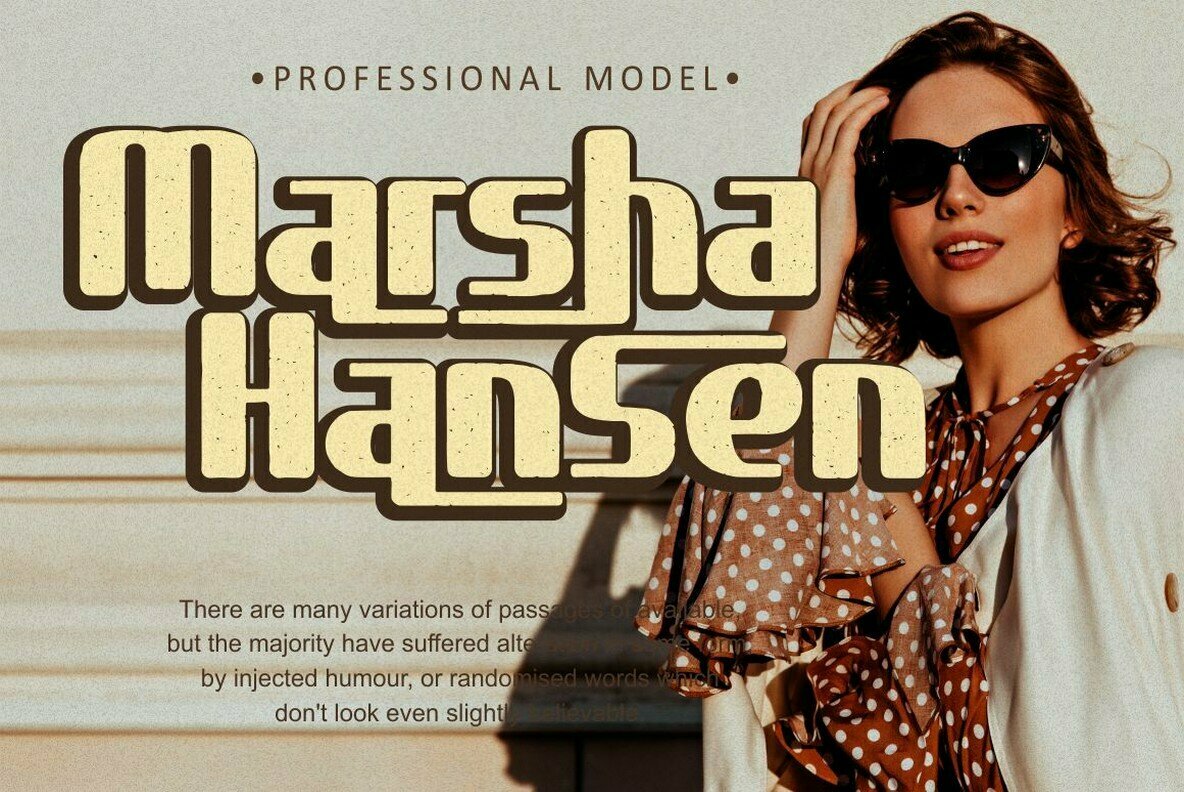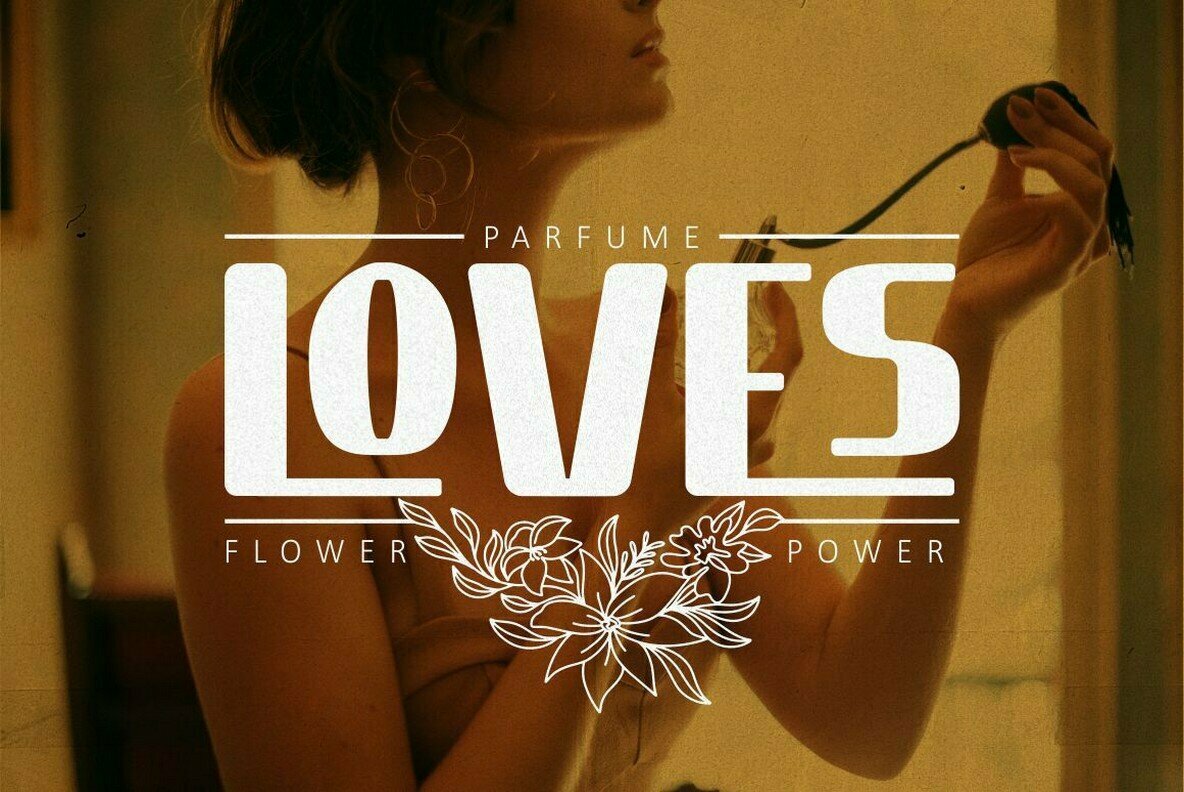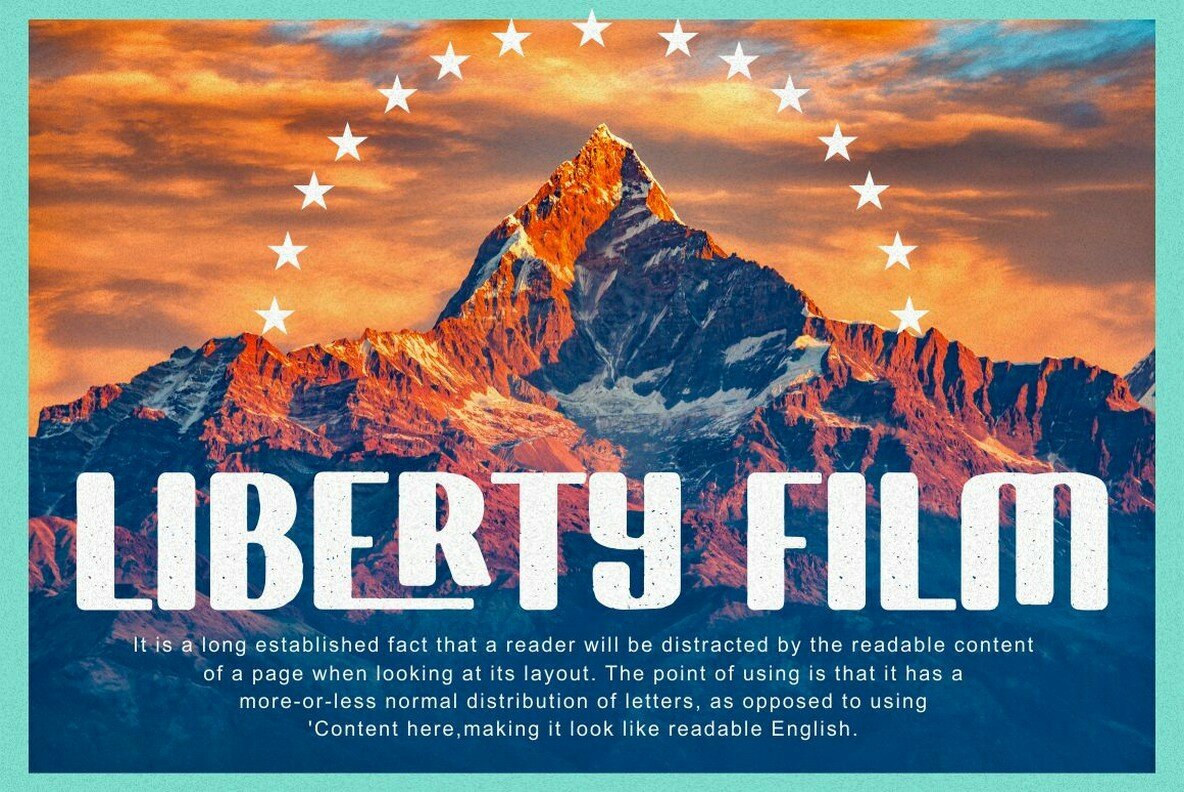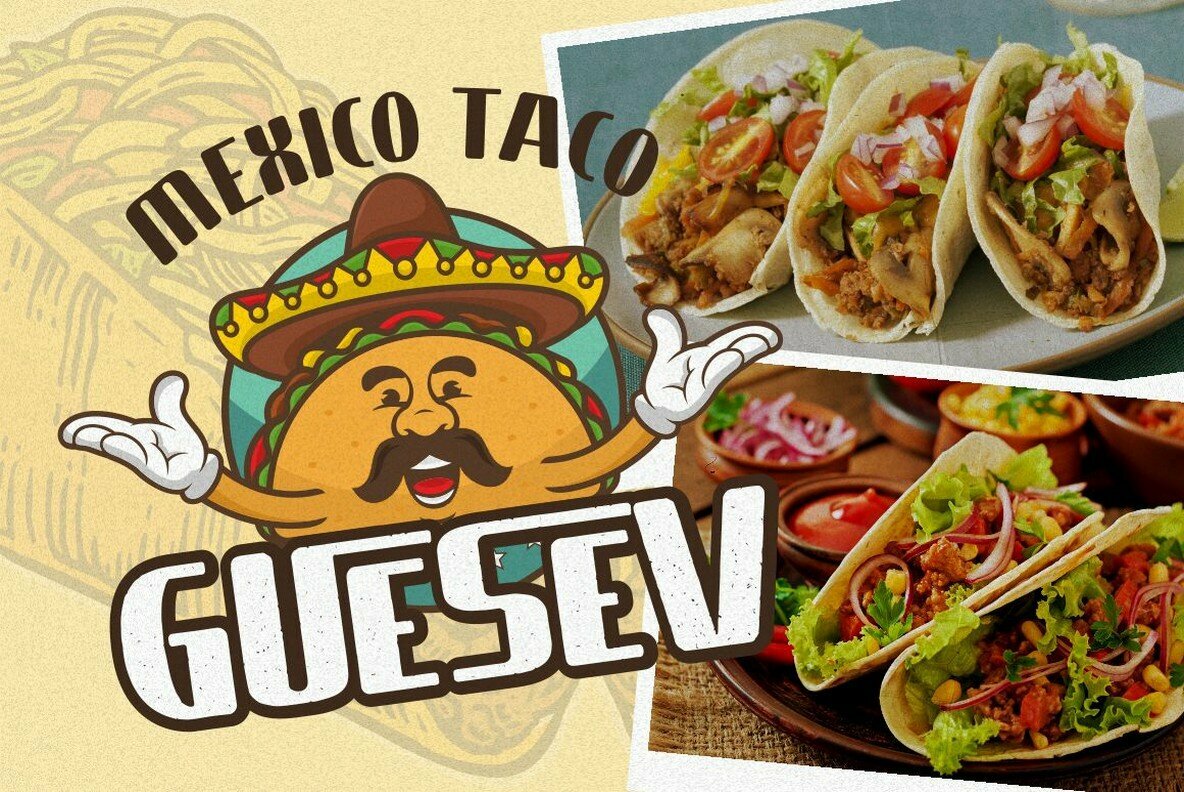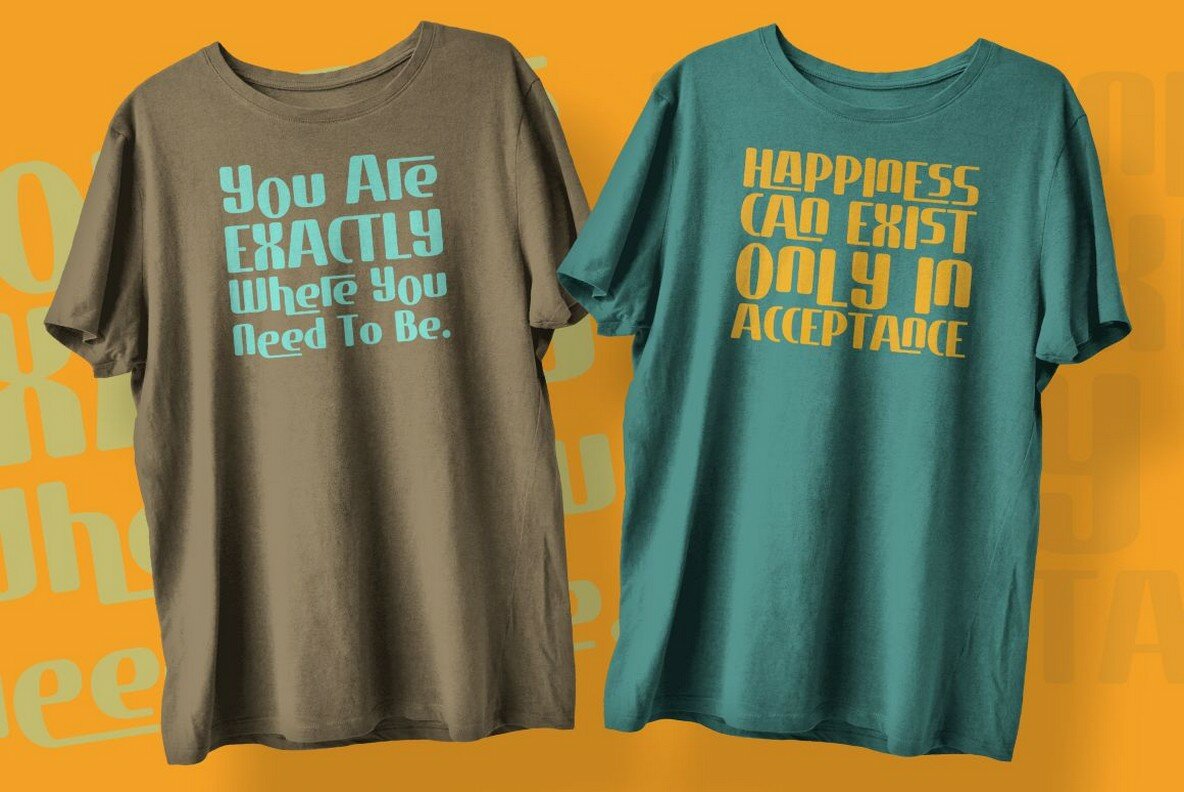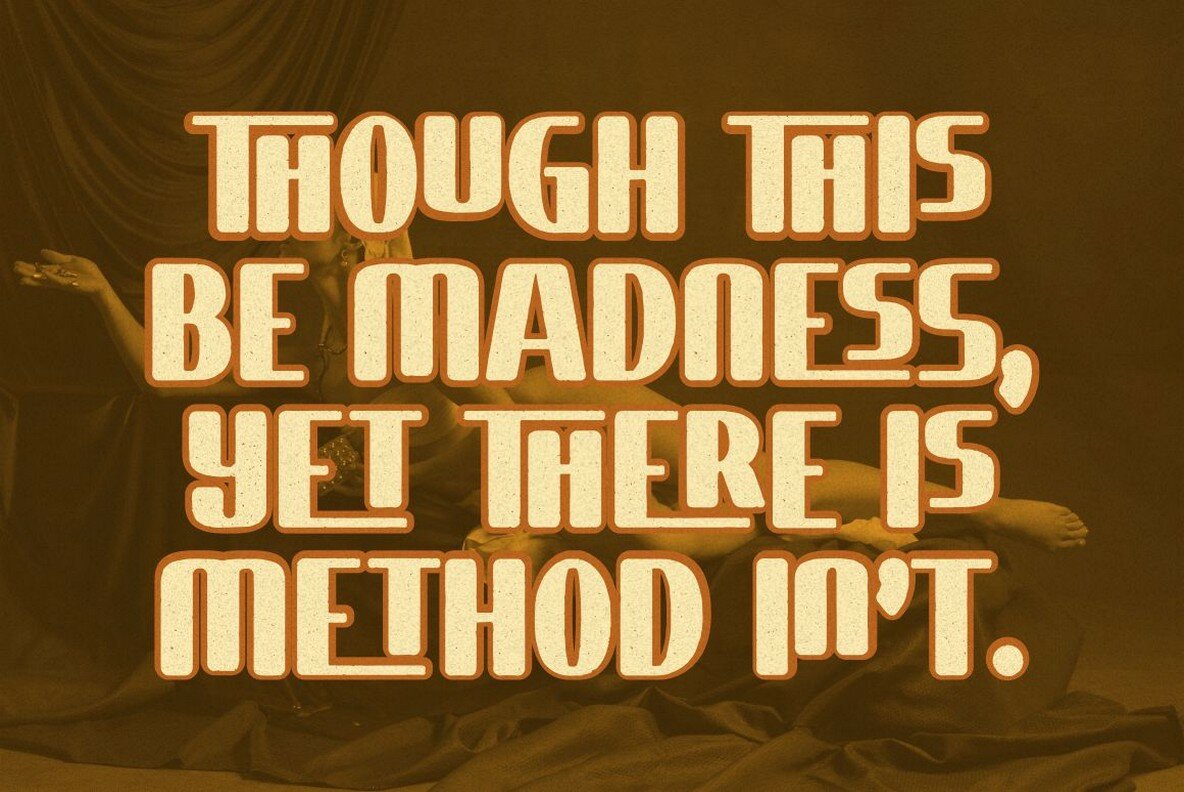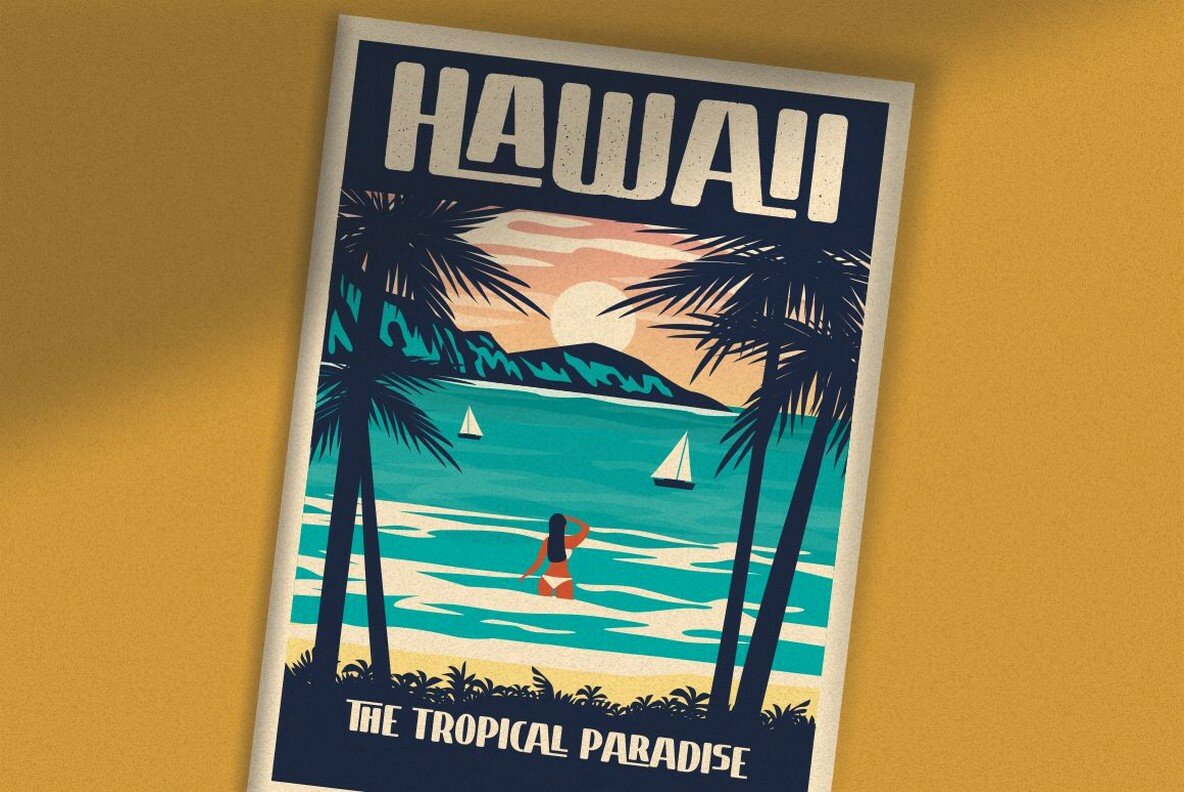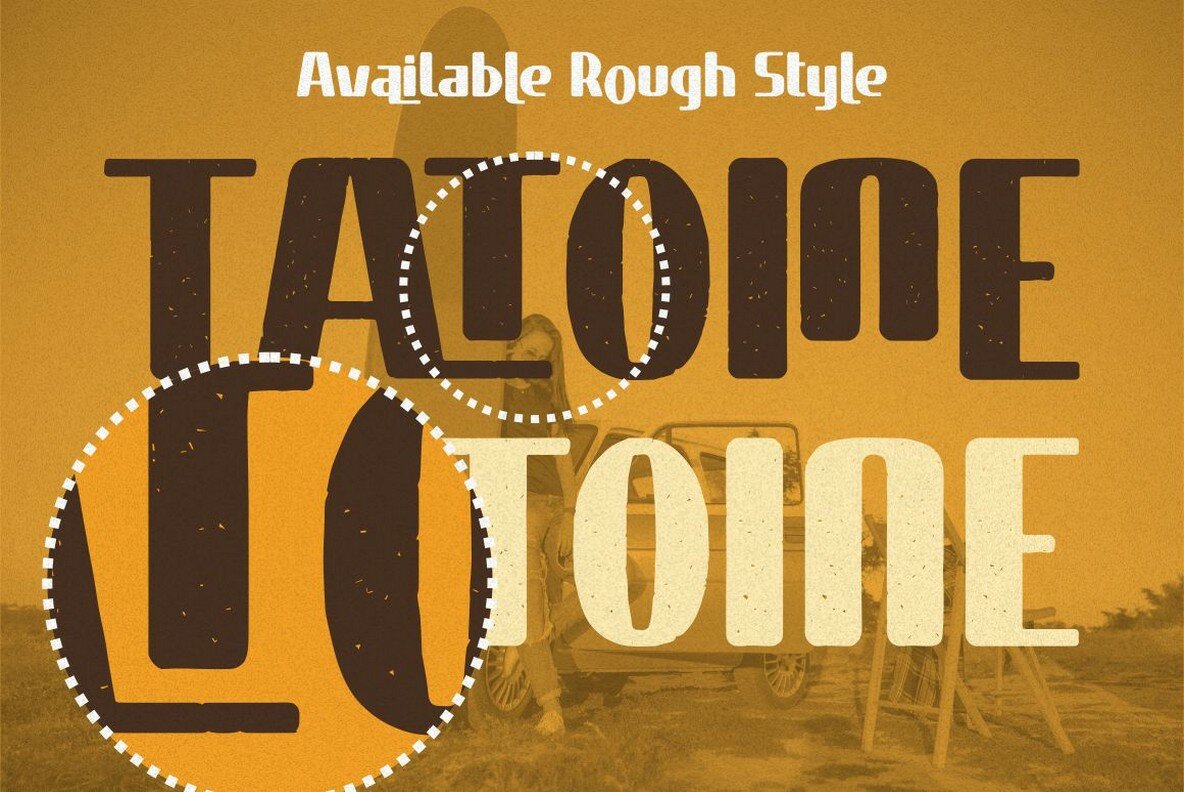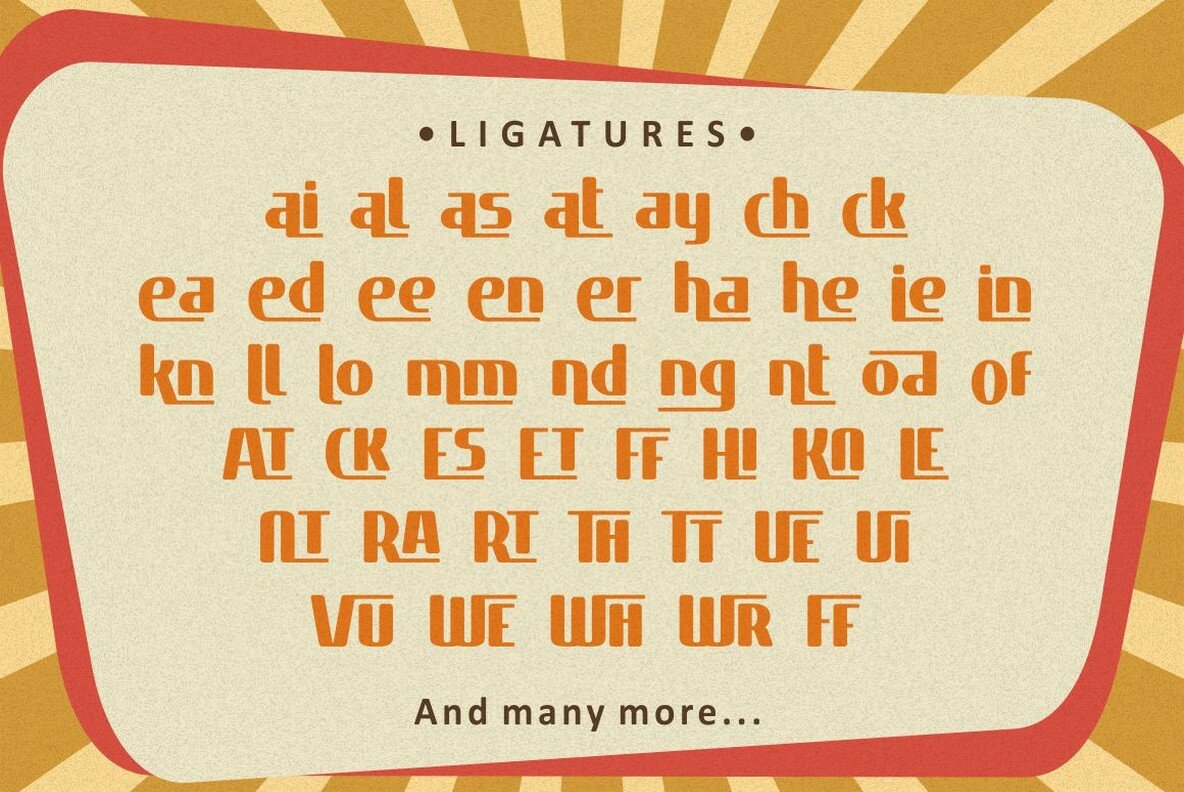
Aloalla Font
Aloalla combines vintage charm with a retro sensibility, crafting an engaging typeface suitable for various design endeavors. This sans serif font features a classic aesthetic with neat, rounded shapes and is available in both a standard and a textured rough version. The vintage allure is enhanced by 118 character ligatures, adding versatility to its application. For projects requiring a cleaner look, the ligature feature can be easily turned off. Ideal for vintage or retro themed creations, Aloalla shines in logos, branding, greeting and invitation cards, advertisements, headlines, book covers, posters, apparel, and more. Its multilingual support extends its usability, making it a versatile choice for international projects. Access to alternate glyphs requires software supporting OpenType features, including Adobe Illustrator, Photoshop, InDesign, and Corel Draw.Aloalla: A Decorative Retro Sans Serif Wonder